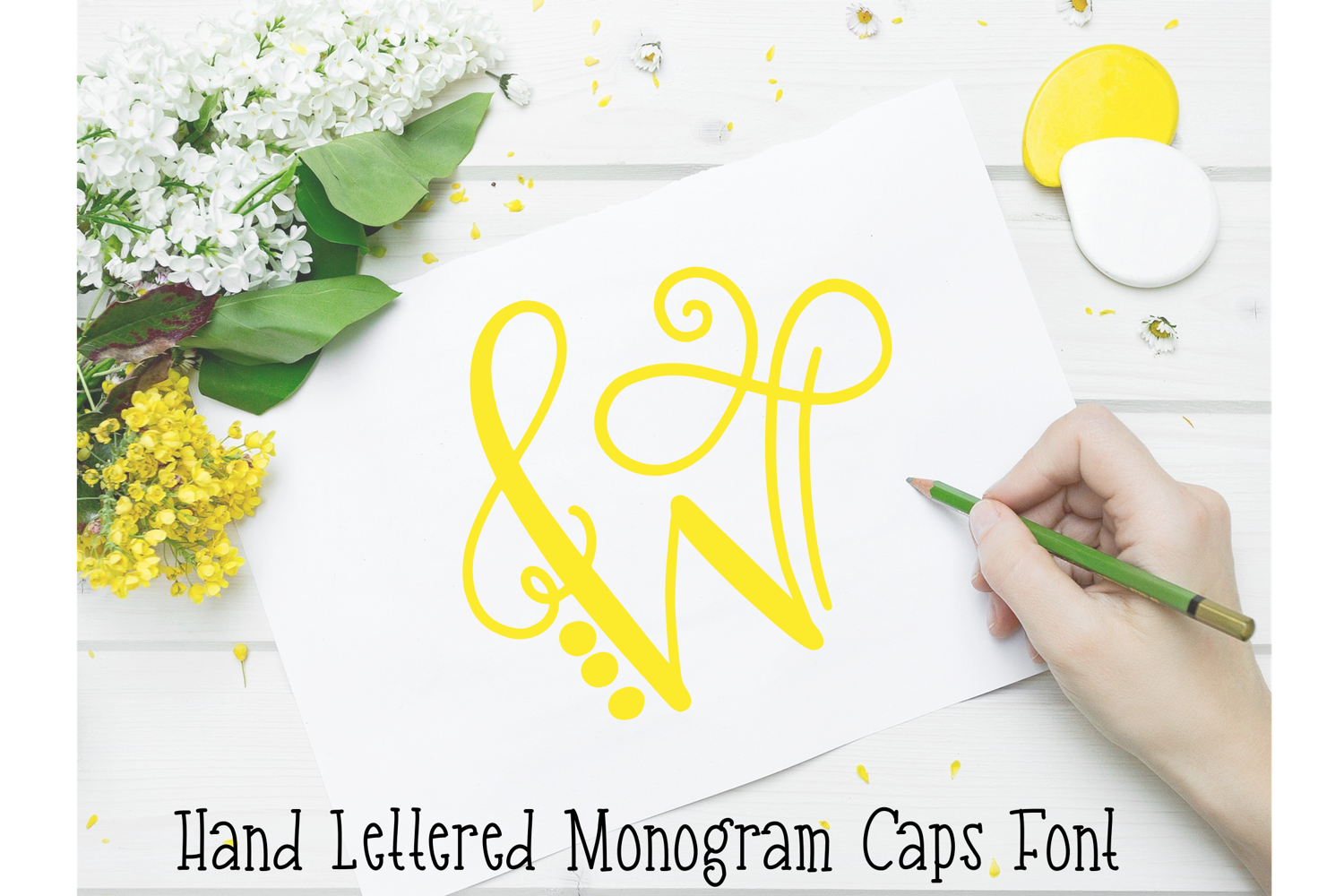
Monogram Font Hand Lettered
Includes OTF TTF SVG This font is perfect for monograms as each letter was hand drawn with beautiful flourishes to make the letter "pop." Perfect for weddings, invitations, personalized items and home decor! Each letter includes a version with and without the circles.